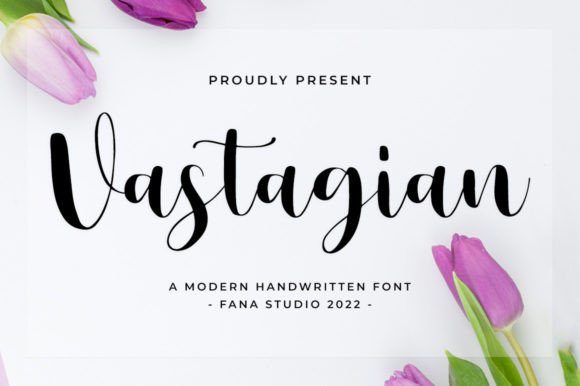
Prepare to be captivated by Vastagian Script, the epitome of elegance and class. This extraordinary script font, meticulously crafted by the renowned fanastudio, is your passport to a world of creative possibilities.
Vastagian Script's alluring curves and refined strokes will breathe life into your creative endeavors. Whether you're crafting a captivating logo, designing stunning invitations, or creating evocative product packaging, this font is your secret weapon.
Imagine your logo adorned with the timeless beauty of Vastagian Script, instantly conveying a sense of sophistication and professionalism. Your invitations will transform into masterpieces, exuding an air of elegance that will leave a lasting impression on your guests. And your product packaging will become irresistible, inviting customers to indulge in your offerings.
The versatility of Vastagian Script knows no bounds. Its enchanting touch will elevate your social media posts, adding a touch of allure to your online presence. Your advertisements will captivate audiences, leaving an unforgettable mark on their minds. And your photography will take on a new dimension, as Vastagian Script's graceful strokes dance across your images, evoking a sense of artistry and emotion.
With Vastagian Script, you'll discover a font that not only meets your creative needs but surpasses them. Its timeless appeal and endless applications will empower you to unleash your imagination and create designs that resonate with your audience.